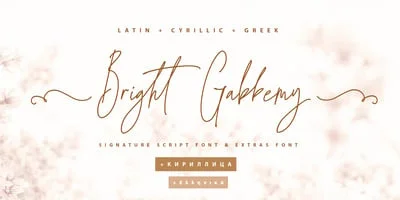
Bright Gabbemy Cyr Gr Font
Bright Gabbemy Cyr Gr Font is perfect for international brand identities, multilingual publishing projects, global communication campaigns, diverse cultural celebrations, international website designs, multicultural event promotions, cross-cultural educational materials, and worldwide marketing initiatives. This versatile typeface excels in global applications, international design projects, and any creative work requiring linguistic diversity that captures the essence of worldwide communication and cultural unity through comprehensive multilingual support.
What makes Bright Gabbemy Cyr Gr Font exciting is its exceptional ability to bridge cultural boundaries and enable seamless global communication through carefully crafted letterforms that support multiple writing systems with consistent visual harmony. The font features internationally designed characters with Cyrillic and Greek extensions alongside Latin alphabets, creating unified proportions that maintain readability across diverse languages, making it ideal for brands seeking worldwide reach and communicating through inclusive visual language. Its global presence ensures immediate recognition of international sophistication and cultural inclusivity.
Bright Gabbemy Cyr Gr Font family includes multiple weights and styles: Regular, Bold, Light, Medium, Italic variations, and extended character sets with comprehensive Cyrillic, Greek, and Latin support plus international embellishments. Each family member maintains the distinctive global character while offering complete typography solutions for worldwide campaigns, from multilingual body text to international headlines that establish global authority and cross-cultural credibility through unified typographic excellence.
Whether you're designing international brand identities or creating global marketing campaigns, Bright Gabbemy Cyr Gr Font provides the perfect typography solution for worldwide branding needs. This font transforms ordinary text into inclusive global communications that bridge cultural differences and celebrate linguistic diversity. International corporations and multicultural organizations choose this typeface for its ability to convey global unity through comprehensively crafted letterforms that speak every language with consistent elegance and cultural respect.